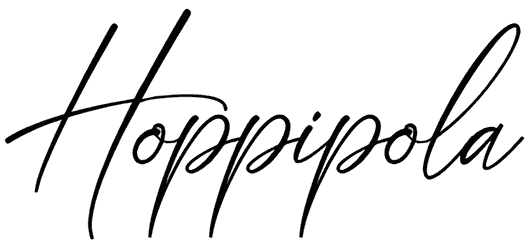
Hoppipola Font
If you feel particularly creative and still need to find the right font to implement it, Hoppipola can be a way to send your message. This handwritten font will stand out on social media, newsletters, wedding cards, and anywhere else personal and has the potential to adapt to different projects.
It is enough to pair it with a suitable background so that the illegibility of this script font becomes beautiful and can give you the best result from any project.